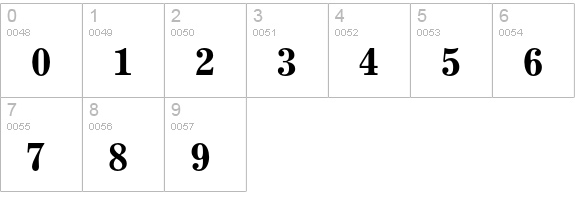
Excelsior EastA Bold is a strong, high-contrast variant in the Excelsior typeface family \xE2\x80\x94 well suited to headlines, attention-grabbing titles, and strong calls-to-action.
Excelsior EastA Bold font is a striking and eye-catching typeface that commands attention with its strong and confident letterforms. The bold weight of this font exudes a sense of power and authority, making it perfect for headlines, titles, and other prominent text elements. Its sleek and modern design adds a touch of sophistication to any project, while still remaining highly readable. What's even better is that Excelsior EastA Bold font is available for free download at FontsMarket.com. This means you can easily access and use this impressive font in your designs without any cost. Don't miss out on the opportunity to enhance your typographic arsenal with this versatile and impactful typeface. Download Excelsior EastA Bold today and take your designs to the next level!